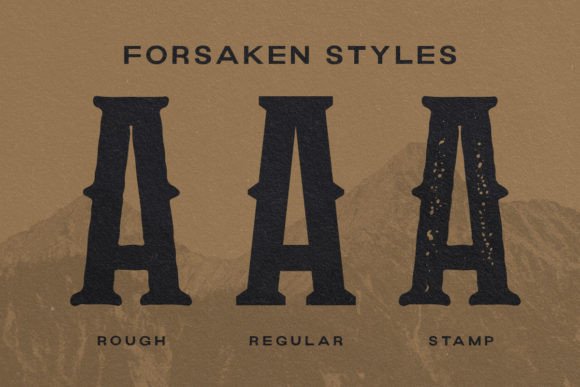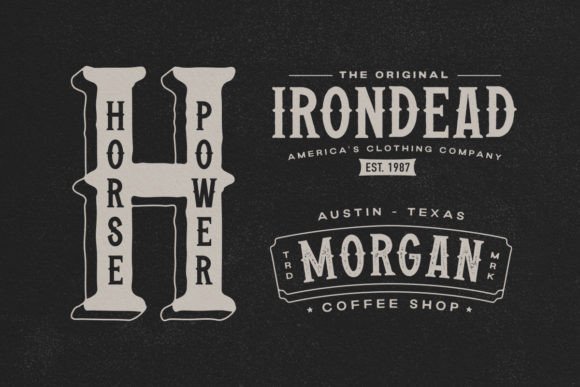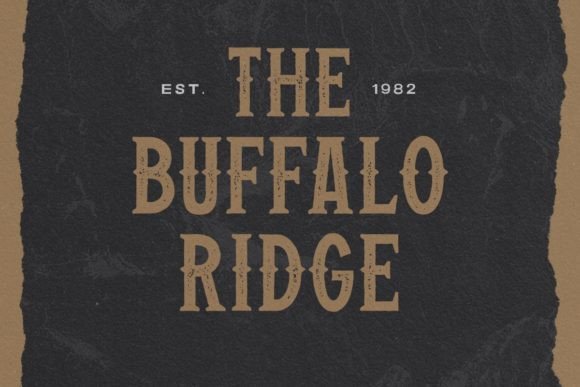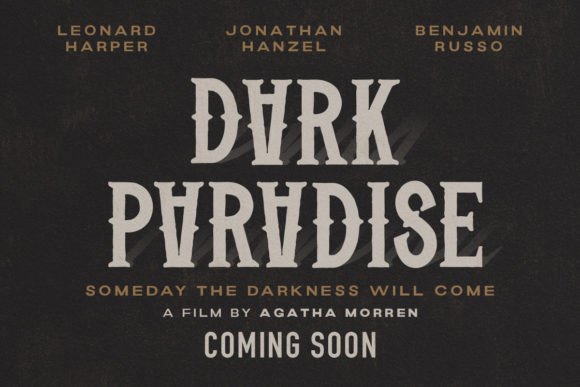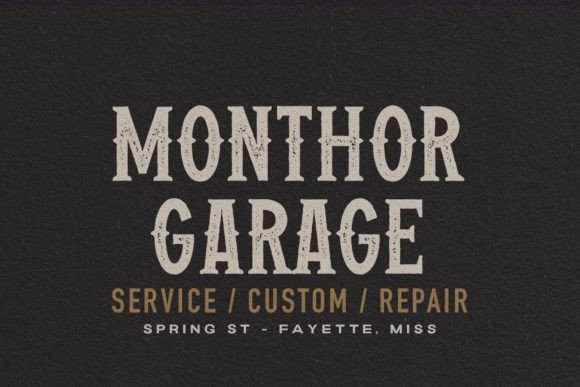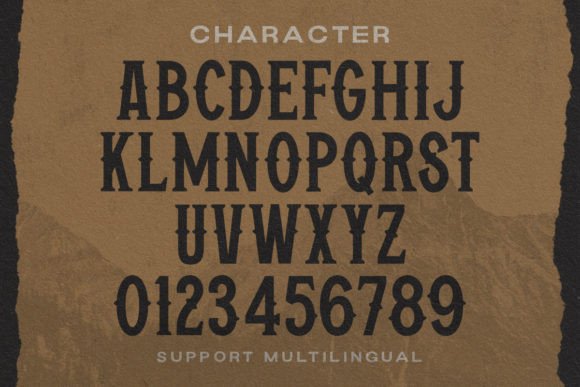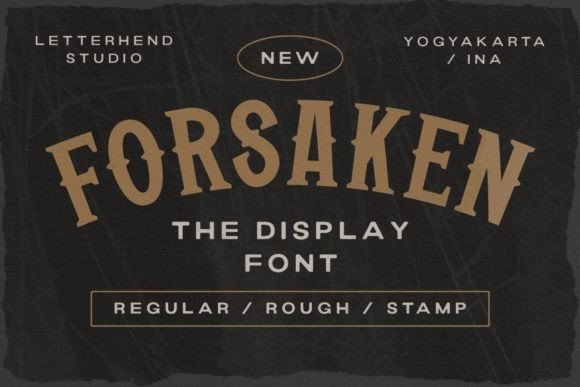
Forsaken Font: A Timeless Serif Display Typeface for Stunning Designs
Are you a designer or crafter looking for a unique and captivating font to elevate your creative projects? Look no further than the Forsaken Font, a serif display typeface that exudes a vintage look and feel. With its incredibly distinct and timeless style, Forsaken Font is sure to fall into your heart and become your go-to choice for creating spectacular designs.
The Distinctive Charm of Forsaken Font
Forsaken Font is a serif display typeface that boasts a classic, nostalgic aesthetic. Its vintage look and feel are reminiscent of bygone eras, evoking a sense of nostalgia and sophistication. The font’s distinctive charm lies in its elegant lines, refined curves, and intricate details, which come together to create a truly unique visual identity.
One of the standout features of Forsaken Font is its exceptional legibility, even at large sizes. This makes it an excellent choice for headlines, titles, and other display text, where clarity and impact are paramount. Whether you’re designing a logo, brochure, or website, Forsaken Font is sure to make a lasting impression on your audience.
Timeless Style for Modern Designs
Despite its vintage inspiration, Forsaken Font is remarkably versatile and can be effortlessly integrated into modern designs. Its timeless style ensures that it won’t go out of fashion anytime soon, making it a valuable addition to any designer’s font library.
Forsaken Font is perfect for a wide range of creative projects, from:
- Websites and social media graphics
- Invitations and event materials
Why Choose Forsaken Font?
So, what sets Forsaken Font apart from other serif display typefaces? Here are just a few reasons why designers and crafters love Forsaken Font:
- Unique character: Forsaken Font has a distinct personality that sets it apart from more generic fonts.
- Elegant lines: The font’s refined lines and curves create a sophisticated, high-end look.
- Exceptional legibility: Forsaken Font remains clear and readable even at large sizes.
- Timeless style: The font’s vintage inspiration ensures that it will remain stylish for years to come.
Tips for Using Forsaken Font
To get the most out of Forsaken Font, here are a few tips to keep in mind:
- Use it sparingly: Forsaken Font is best used as a headline or title font, where its unique character can shine.
- Experiment with colors: The font’s vintage look and feel lend themselves perfectly to rich, bold colors.
- Pair it with complementary fonts: Forsaken Font pairs beautifully with simpler sans-serif fonts, which can help to create a striking contrast.
In conclusion, Forsaken Font is a serif display typeface that offers a unique blend of vintage charm and timeless style. Its exceptional legibility, elegant lines, and distinctive character make it an excellent choice for designers and crafters looking to create stunning designs. Whether you’re working on a logo, website, or marketing materials, Forsaken Font is sure to fall into your heart and become your go-to choice for creating spectacular designs.